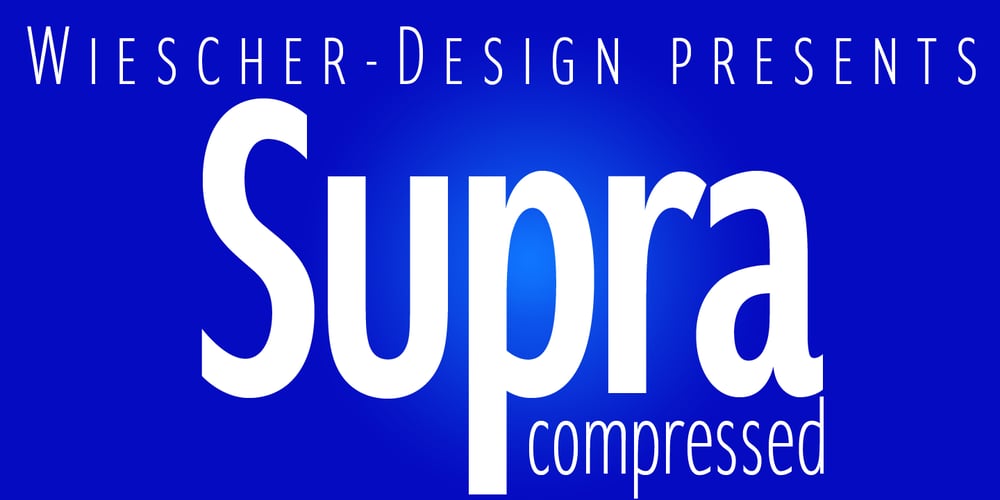
Supra Compressed Font Family was designed by Gert Wiescher and published by Wiescher Design. Supra Compressed contains 15 styles and family package options. “Supra-compressed” – designed by Gert Wiescher in 2013 – is the extreme version of this family. But despite it being very slim it is still – because of its openness – a very readable font. The light and normal weights and the dominant x-height with its high ascenders make for easy reading of long copy. The heavy and x-light weights are great for elegant headlines. Supra is a versatile OpenType family with lots of different weights.